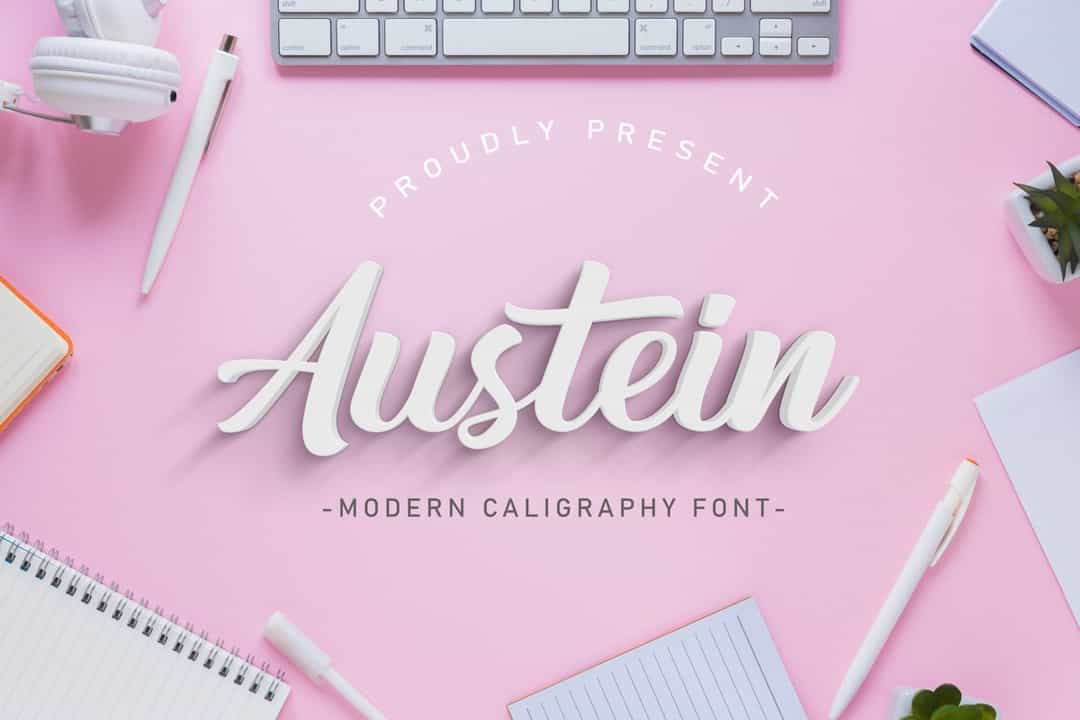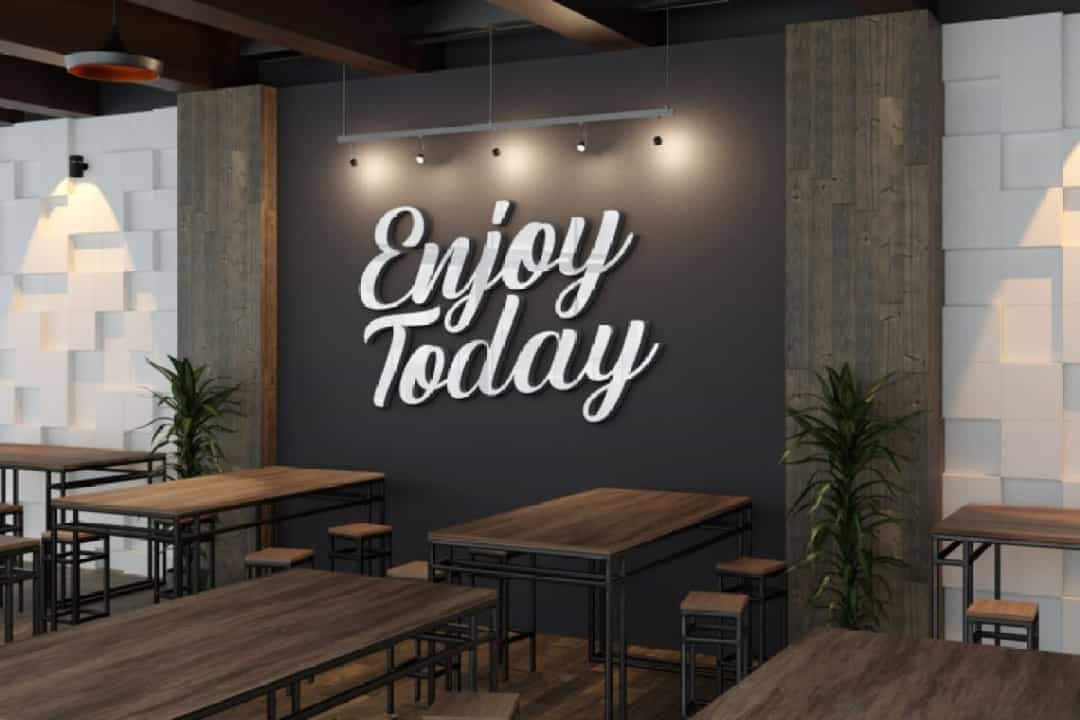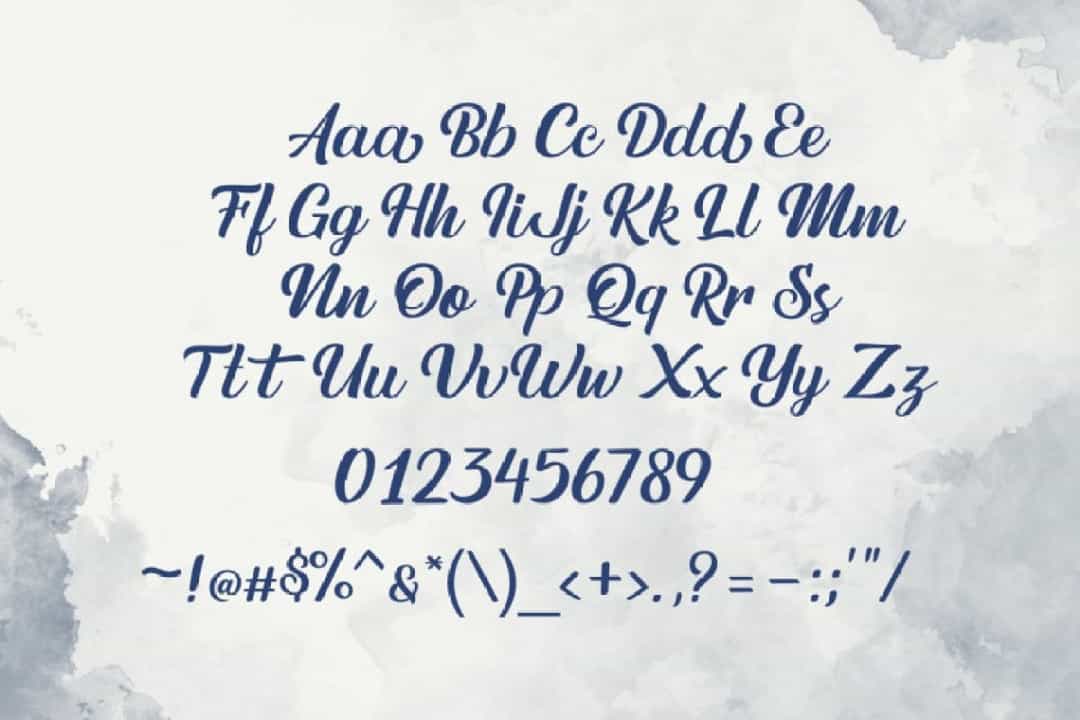
Discover Austein Bold Script Font, part of the Calligraphy Script collection—a versatile and unique font perfect for adding a personal touch to your projects. Download it for free and enjoy crafting designs with style, from invitations to social media posts. This font is available exclusively for personal use, giving you the freedom to create without limits. Unlock your creativity with Austein Bold Script Font today!
Austein is one of the most popular and unique versions of logotype script font desired by many to be used in the future. As a result of its casual design and the pleasant and informal atmosphere that surrounds it, it has a rather casual and clean look that works well with busy backgrounds or as an headlines – and so, Mountain Bridge looks fabulous!